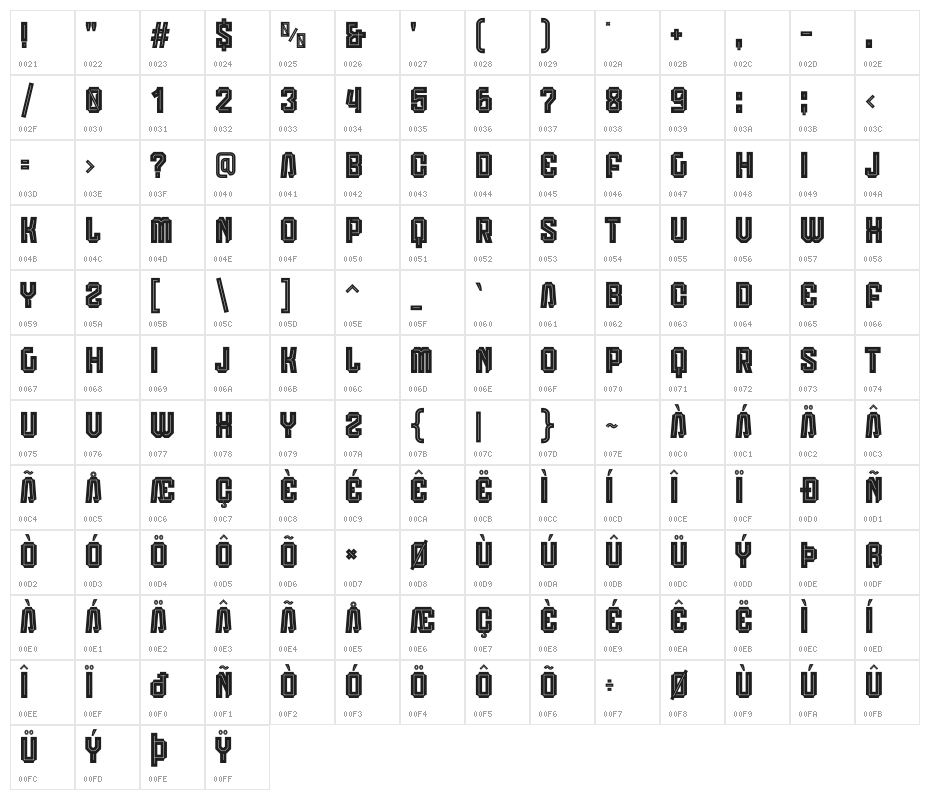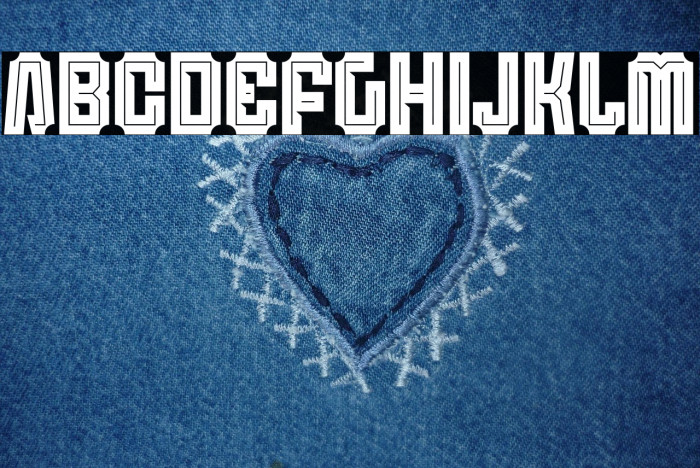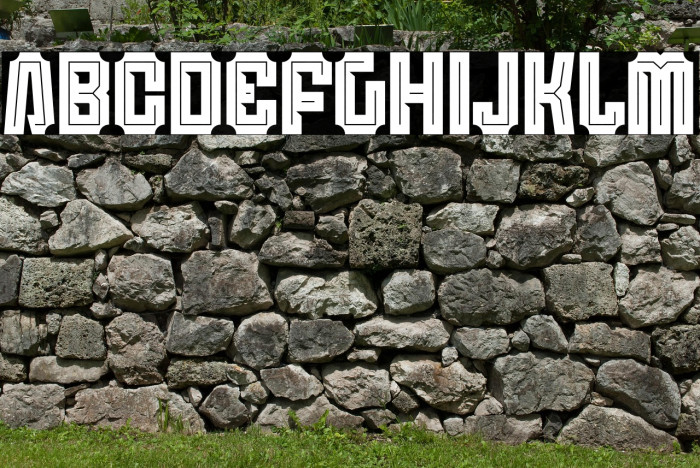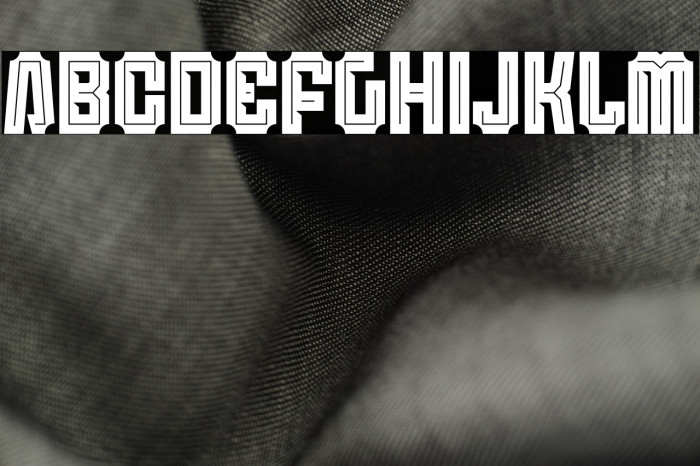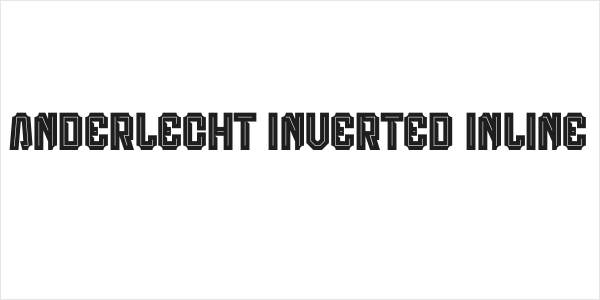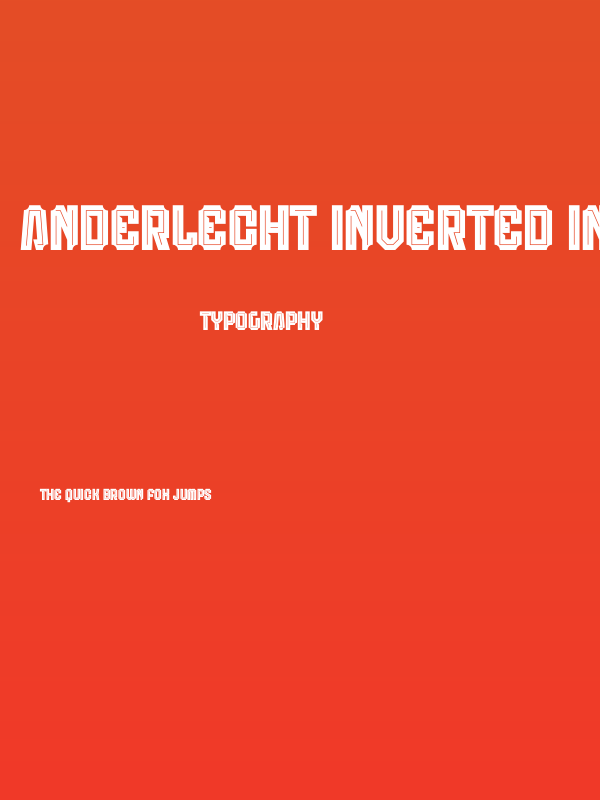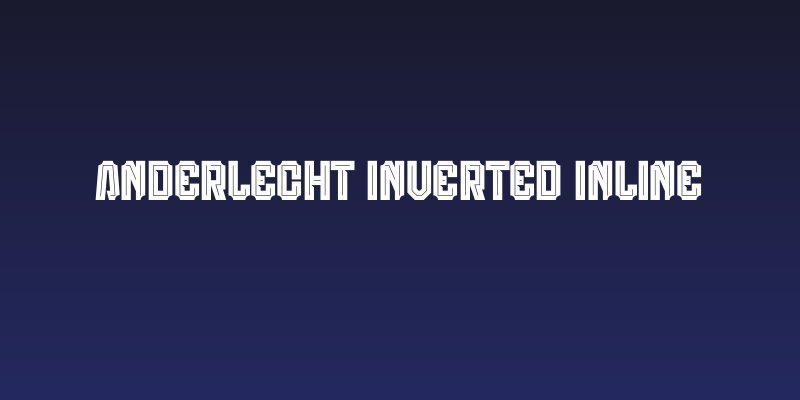
Anderlecht Inverted Inline Font
Anderlecht Inverted Inline Description
This font features a bold, geometric design with a distinct inline style that creates a striking visual effect. The characters are constructed with thick, block-like forms, giving them a strong presence. The inline detail adds depth and dimension, making each letter stand out. The uppercase and lowercase letters maintain a consistent style, while the numerals and special characters complement the overall aesthetic. This font is ideal for making a bold statement and is well-suited for display purposes.
| Proposed Projects | Ideal for posters, headlines, branding, and any project requiring a bold, eye-catching typeface. |